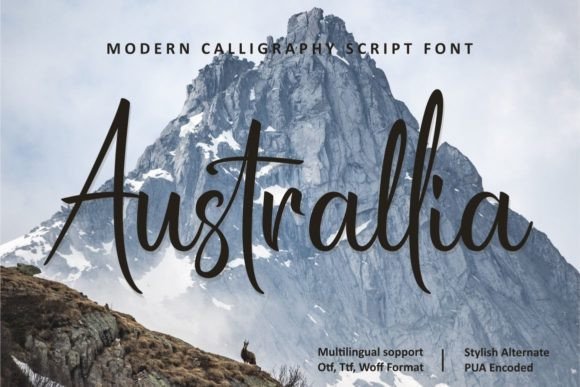
Introducing Australlia: The Ultimate Script Font for Creative Projects
Have you ever been in the middle of a design project, and suddenly, you’re stuck on finding the perfect font? I recall a recent experience where I was working on a branding project for a trendy boutique, and I just couldn’t find a script font that captured the right vibe. That’s when I stumbled upon Australlia, a stunning script font that has since become a staple in my design toolkit.
A Personal Encounter with Australlia
Australlia is more than just a font – it’s a design companion that offers a wide range of creative possibilities. This strong script font is carefully crafted with hand lettering, making it perfect for branding, logotypes, and various design projects. What I love about Australlia is its unique blend of elegance and playfulness, making it suitable for a variety of applications, from quotes and merchandise to packaging and business cards.
An Honest Review of Australlia
• ✨ Stylistic alternatives and swashes: Australlia offers a wide range of stylistic alternatives and swashes, allowing you to create customized designs that reflect your brand’s personality.
• ✅ Easy to read and versatile: The font is clear, legible, and adaptable to different design contexts, making it perfect for various projects.
• 💫 Unique and eye-catching: Australlia’s distinctive style sets it apart from other script fonts, ensuring your designs stand out from the crowd.
While Australlia is an excellent font, there are a few minor considerations to keep in mind:
• ⚠️ Some swashes may not work well in all contexts: A few swashes might not fit perfectly in certain design situations, requiring some manual adjustments.
• 🤔 Requires some exploration to get familiar with OpenType features: While not difficult to use, Australlia’s OpenType features and glyphs may take some time to get accustomed to, especially for those new to using these features.
The Story Behind Australlia
Australlia was designed with the intention of creating a versatile script font that captures the essence of hand lettering. The designer aimed to craft a font that would be both elegant and approachable, making it suitable for a wide range of creative projects.
Q: What makes Australlia unique?
A: Australlia’s unique blend of stylistic alternatives, swashes, and hand-lettered style sets it apart from other script fonts.
Q: Is Australlia difficult to use?
A: No, Australlia is relatively easy to use, especially for those familiar with OpenType features and glyphs.